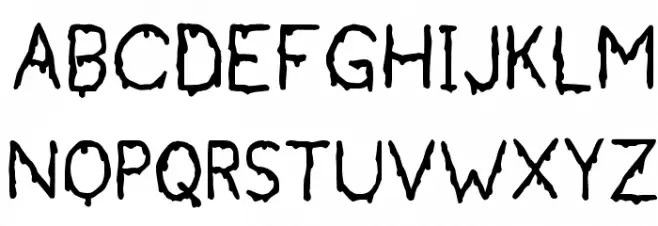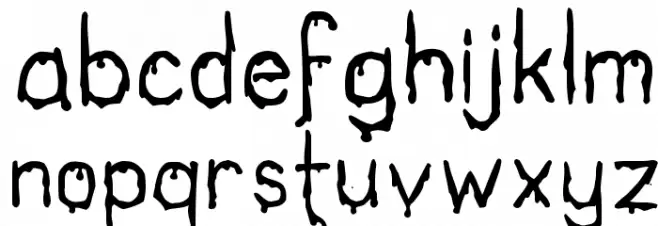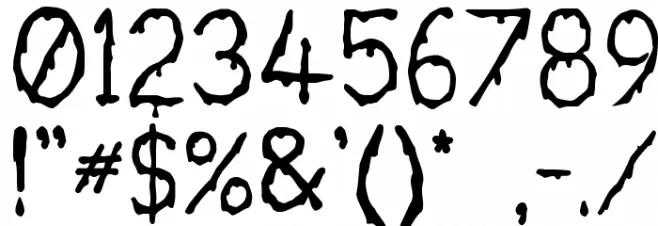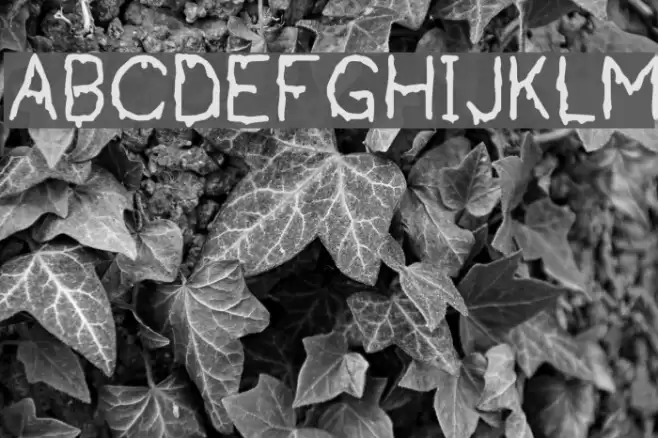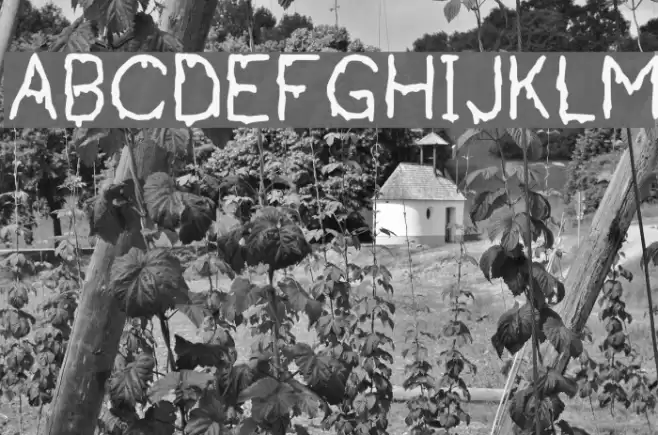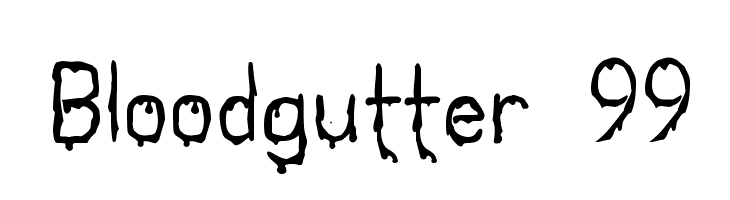
Bloodgutter 99
This font features a rugged, distressed style with uneven edges and a hand-drawn appearance, reminiscent of dripping or splattered ink. The characters are irregular and organic, giving a raw and edgy feel. The uppercase and lowercase letters maintain a consistent style, with jagged lines and a slightly chaotic structure. Numbers and special characters follow the same aesthetic, adding to the font's unique and unconventional look. This font is ideal for projects that require a bold, artistic touch, such as horror-themed designs or grunge-style graphics.
A rugged, distressed font with a hand-drawn, ink-splattered appearance.
- Proposed Projects: Ideal for horror-themed designs, grunge graphics, album covers, and edgy posters.
- Overall Style: Decorative
- Use Case: Headlines, Posters, Artistic Designs